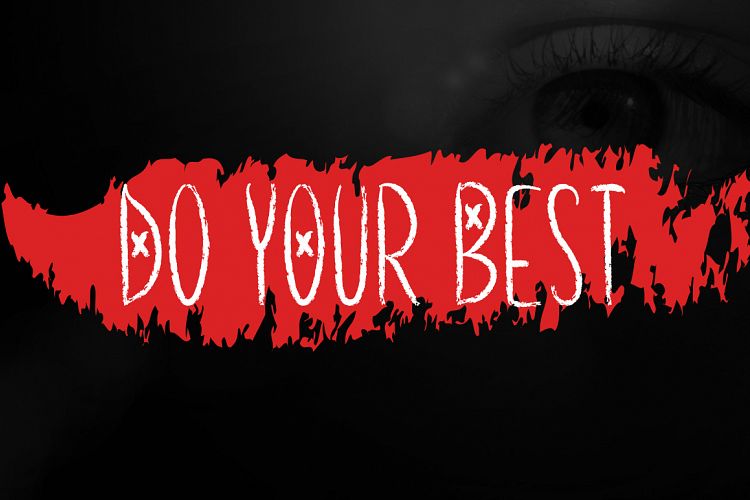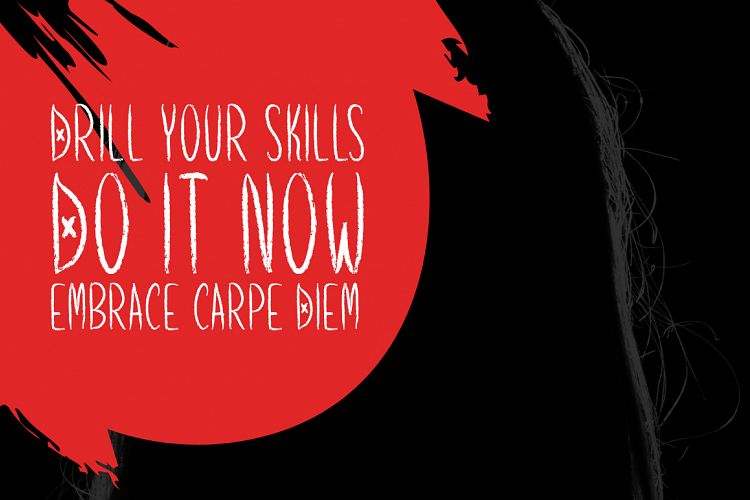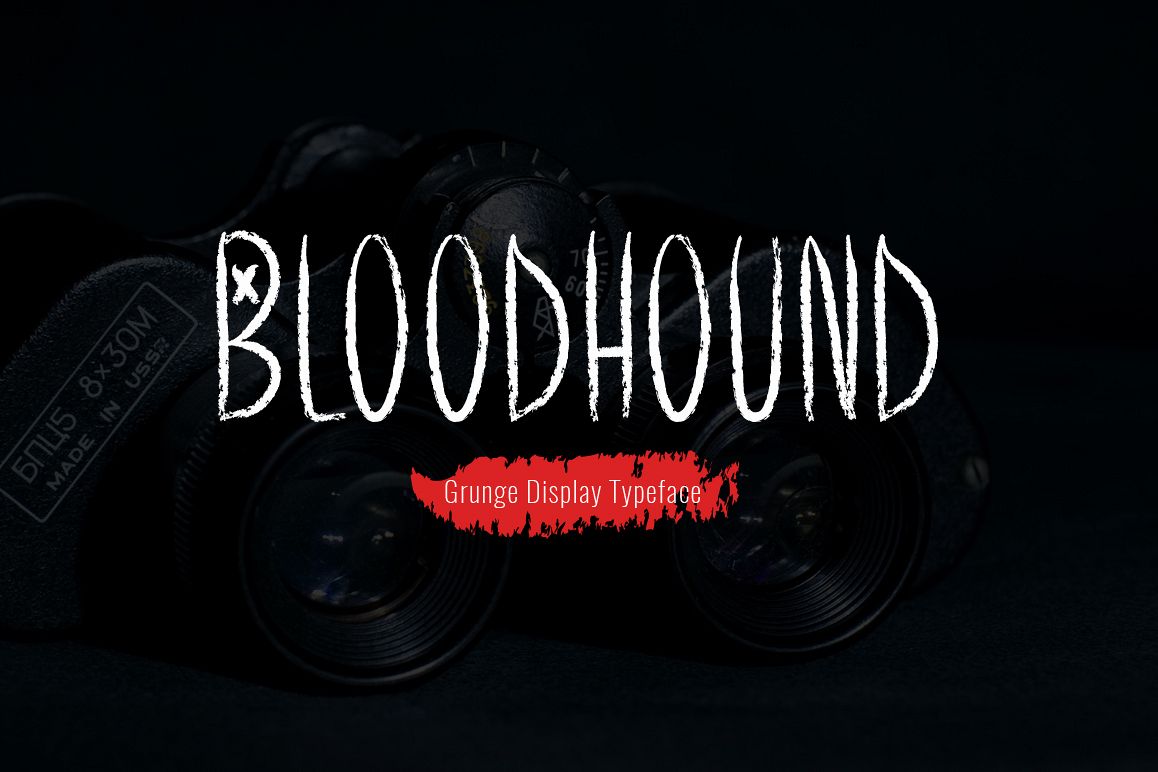
Bloodhound Regular Font
Bloodhound is a brand new display font. Bloodhound is perfectly suited for stationery, logos, t-shirt, paper, print design, website header, photo frame, flyer, music cover, poster, image slider and much more.